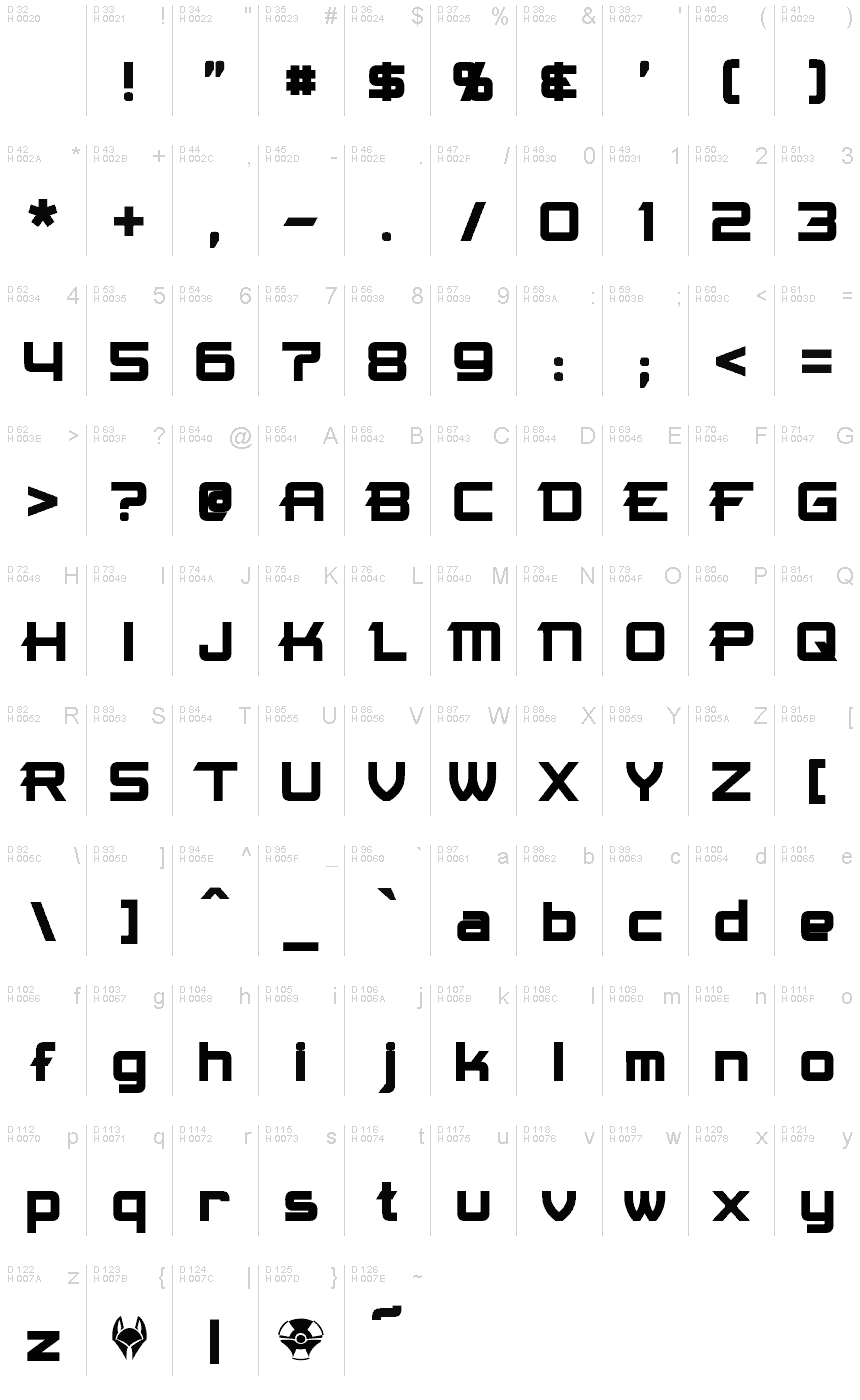
Maximize Bold
Maximize Bold by Neale Davidson is a striking, futuristic display font that exudes an angular, dynamic aesthetic. Inspired by the iconic branding of the Transformers: Beast Machines franchise, this typeface features bold, angular letterforms with subtle angled flourishes that lend it a sense of dynamism and movement.
The expanded width of the characters adds a bold, assertive presence, making Maximize Bold an ideal choice for attention-grabbing headers, titles, and logos in a wide range of design contexts, from science fiction-inspired branding to cutting-edge tech applications. With its full alphabet, extended punctuation, and multiple weight options, Maximize Bold offers designers a versatile typographic solution that effortlessly blends retro-futuristic style with modern sensibilities.